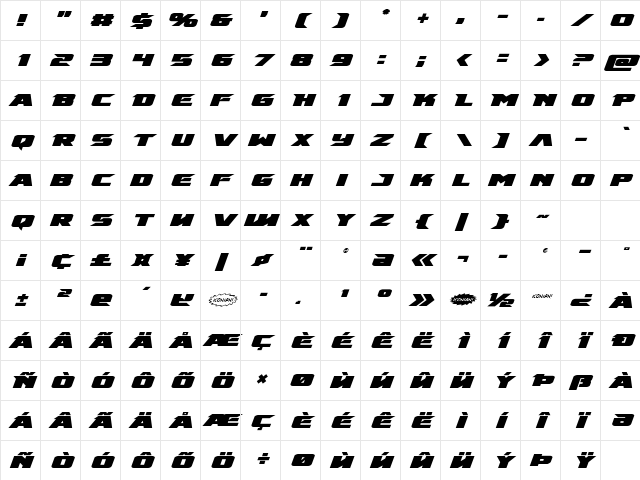
Complete Emissary Super- Italic glyph index. Displaying only characters natively supported by Emissary Super- Italic font.
Emissary Super- is a composed and adaptable typeface that performs quietly and consistently across a wide range of design contexts. The slanted form adds forward momentum and visual energy.